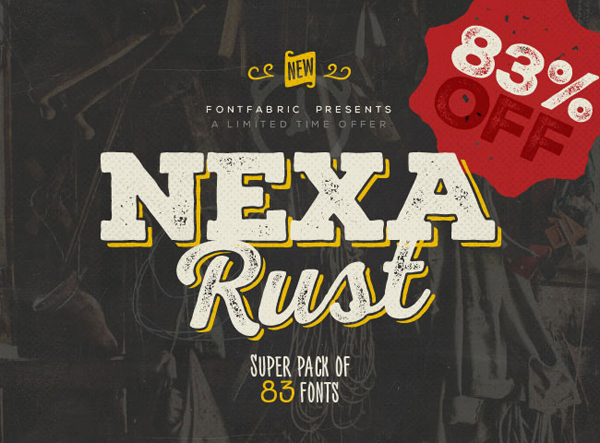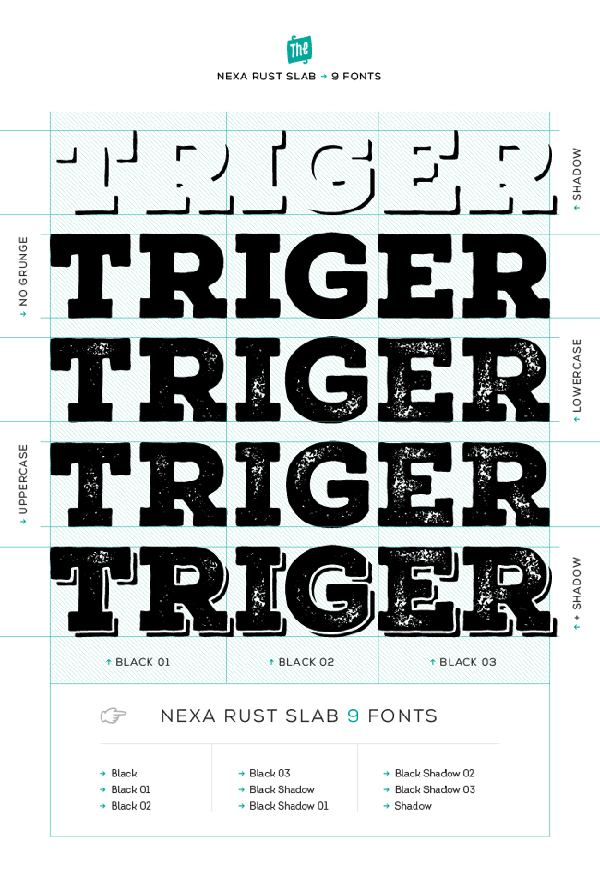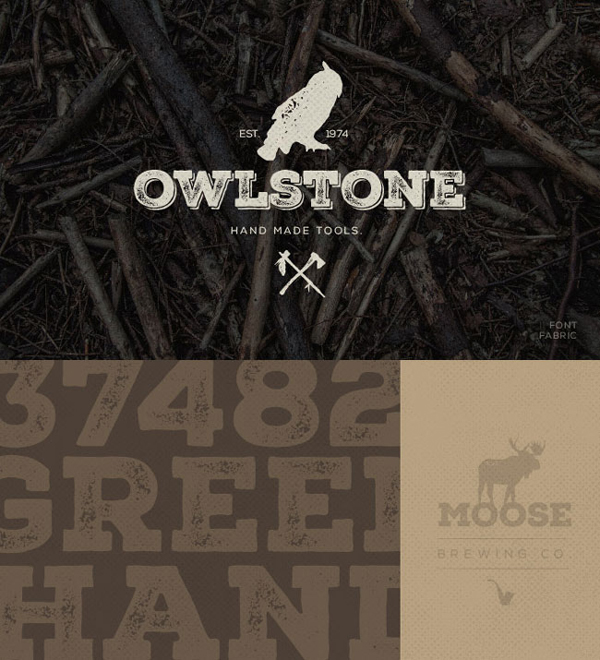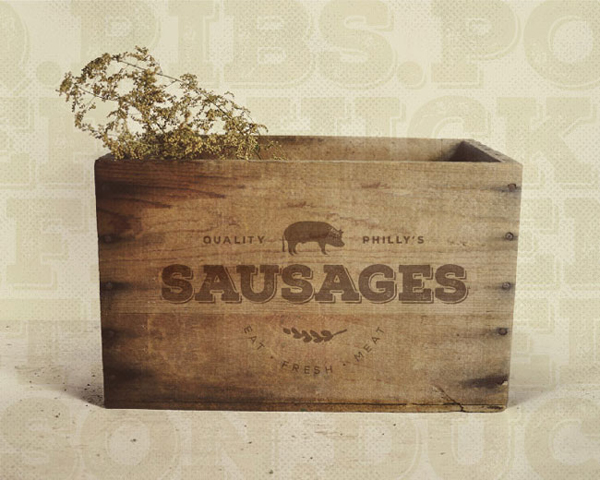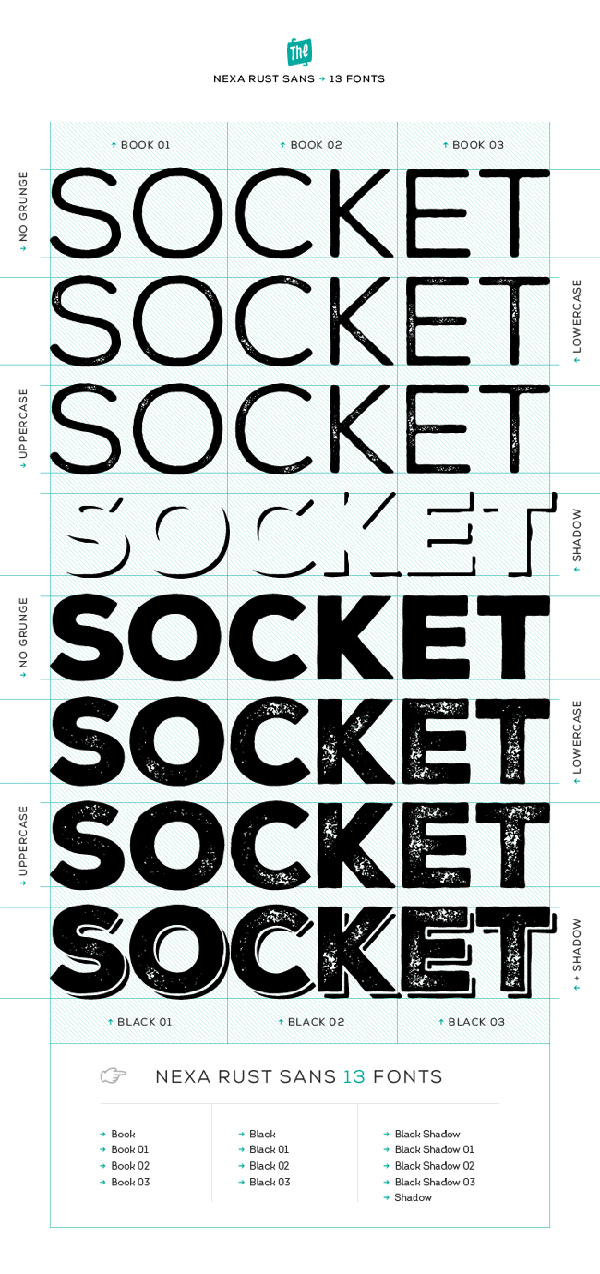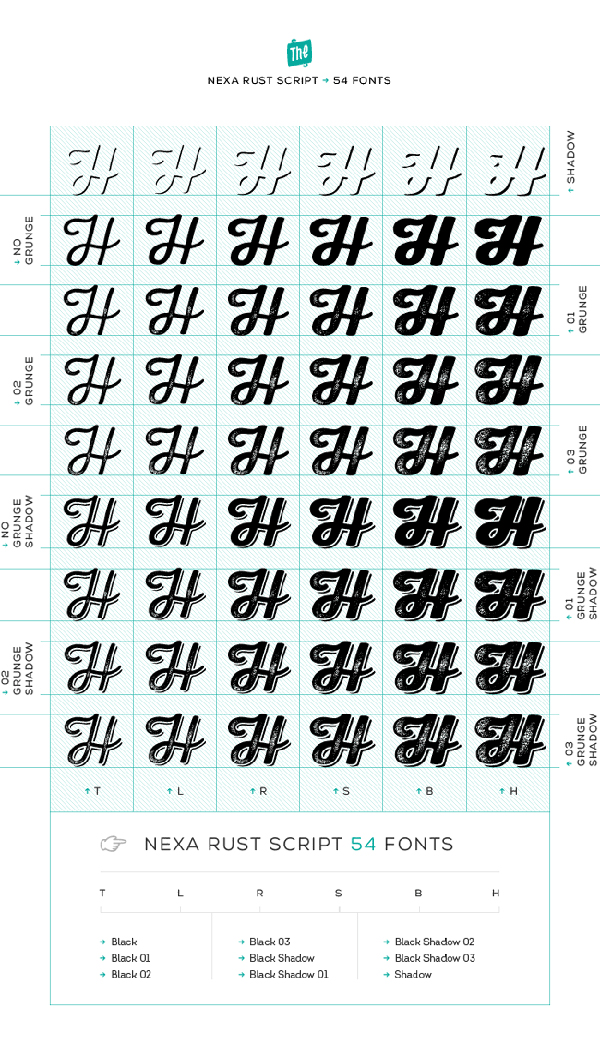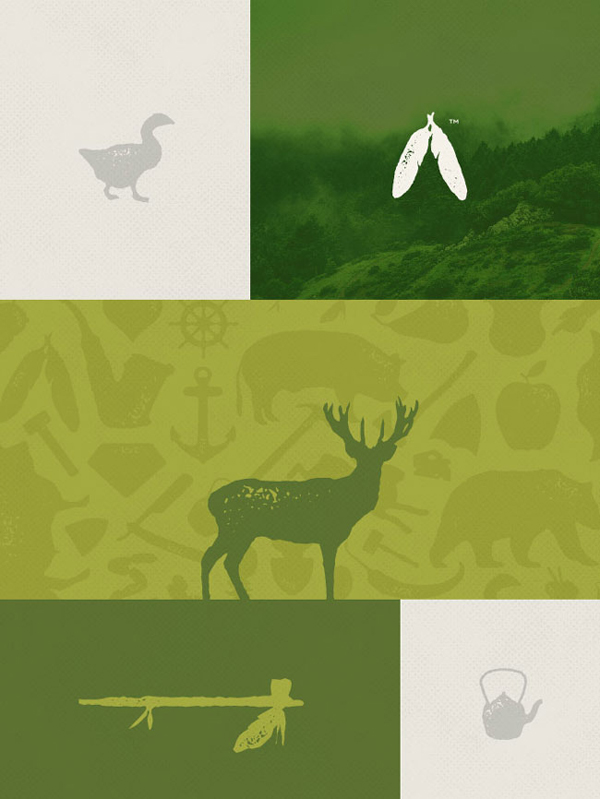
Part of the popular Nexa font family, Nexa Rust is an incredible typeface. With its 5 sub-families and 83 fonts, it can be used for almost any case of rusty and vintage design: logo design, titles, packaging,…